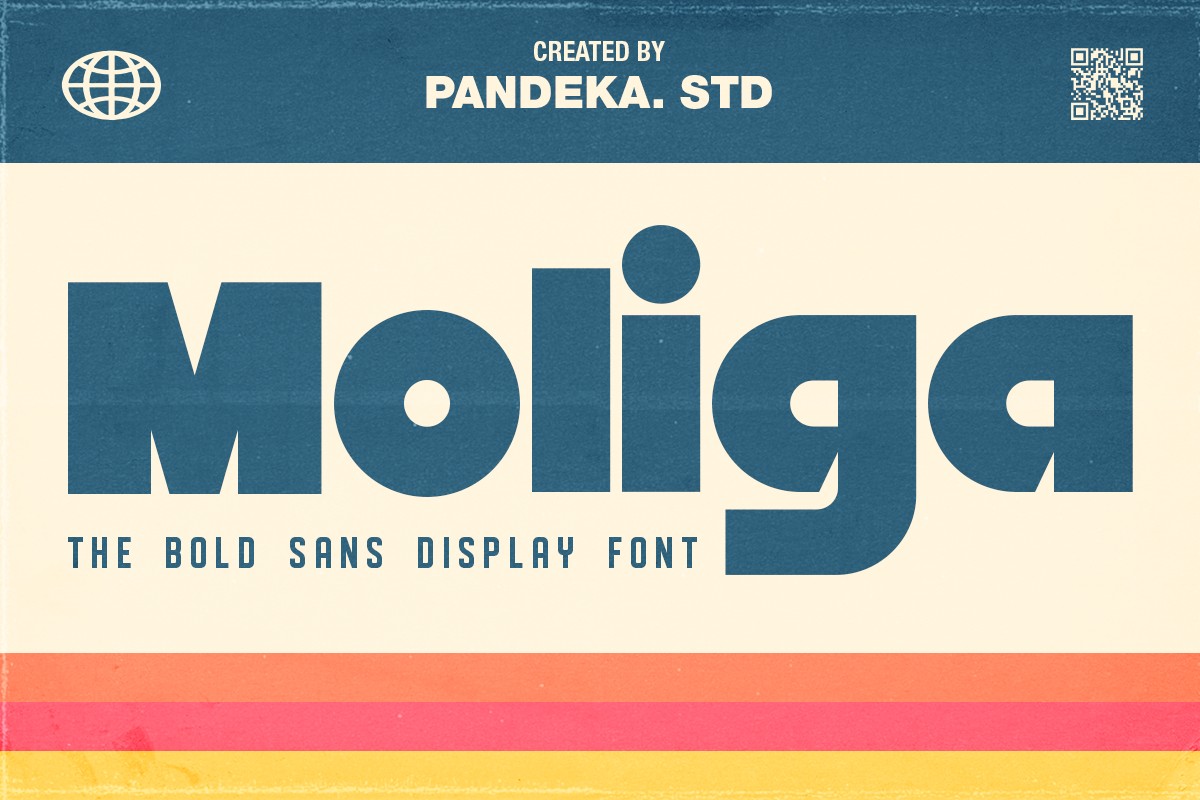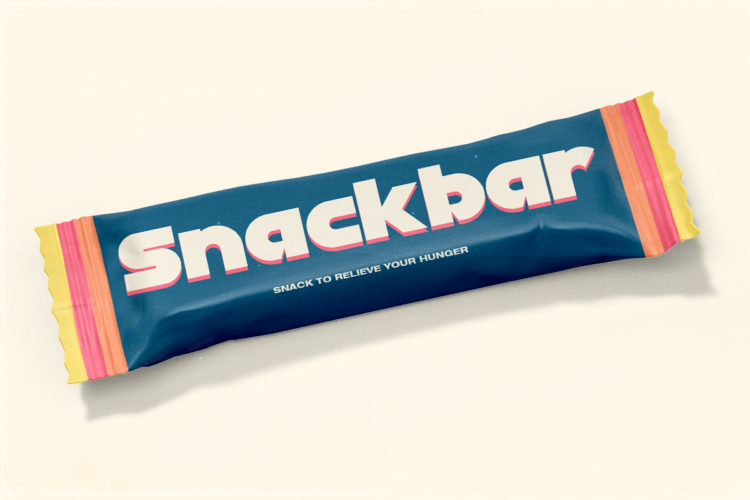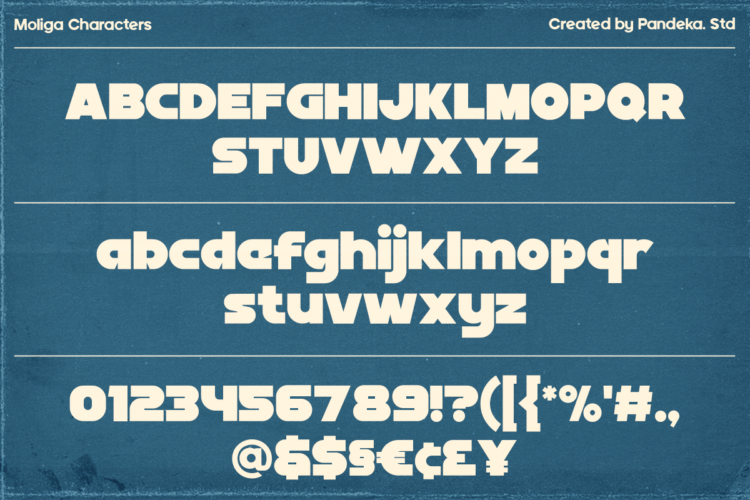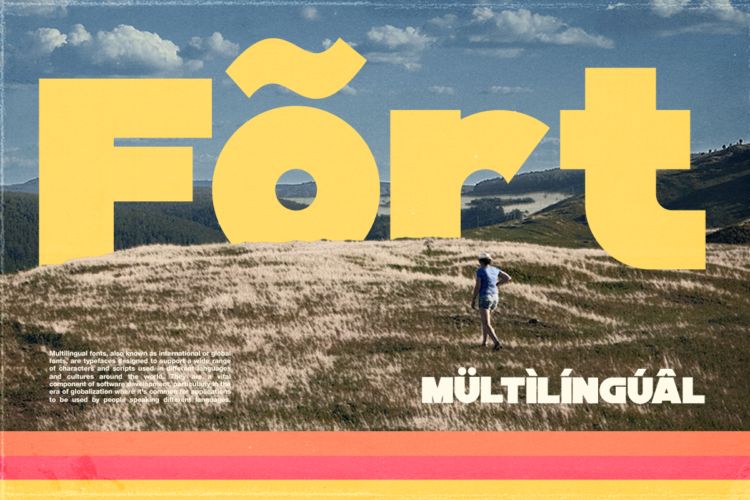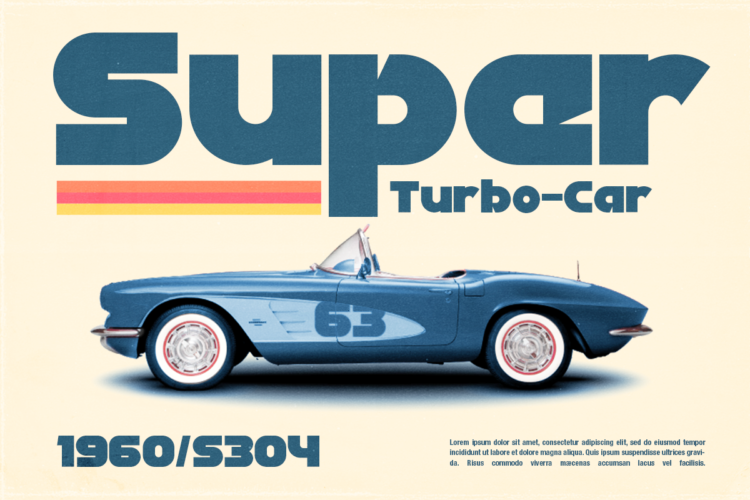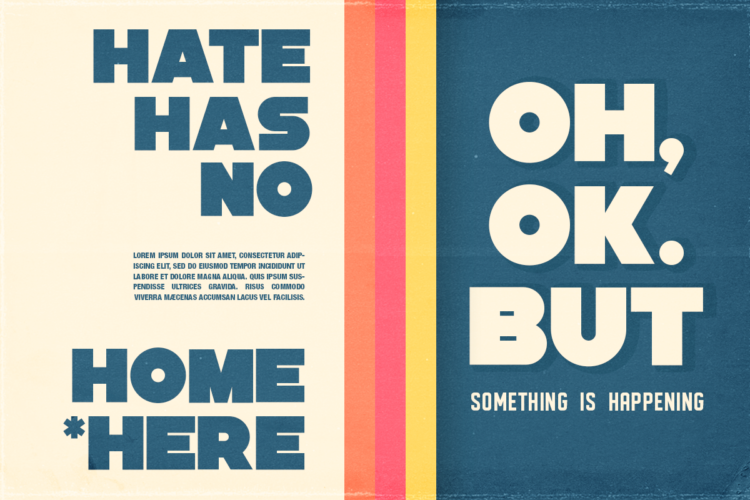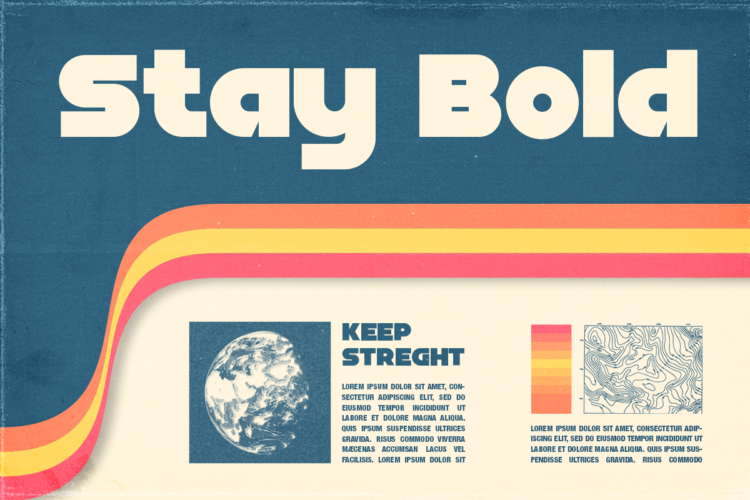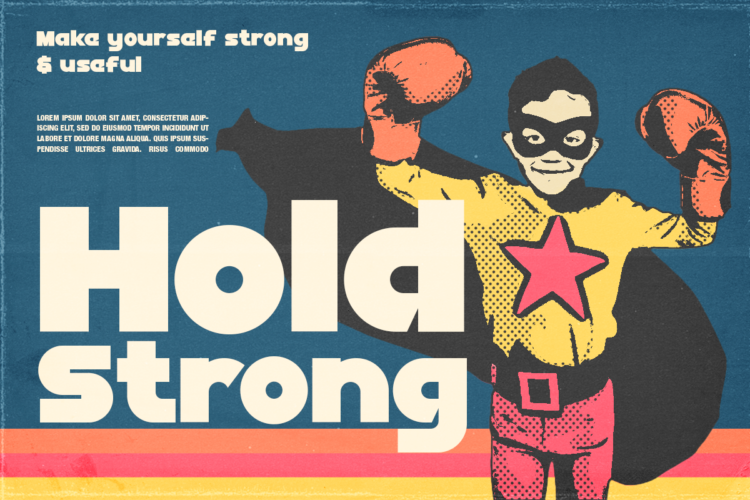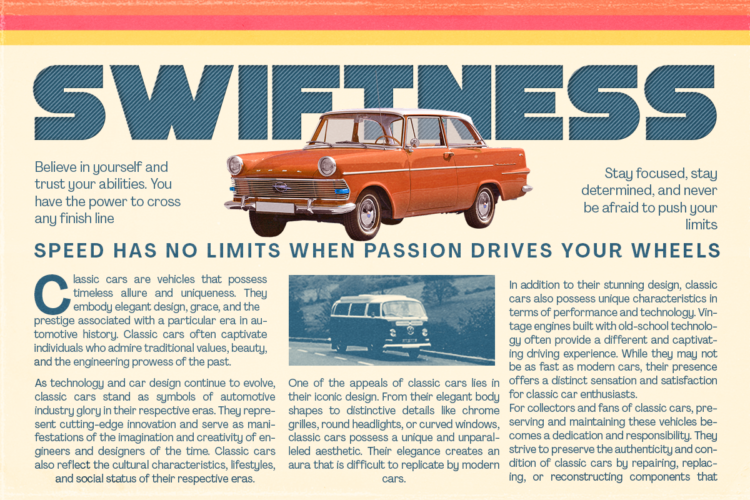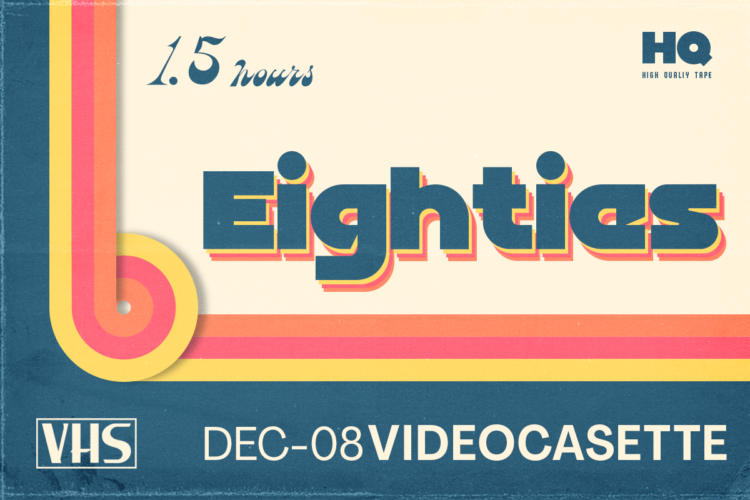
Moliga
Introducing Moliga! An Display typeface with mid century feeling.
Moliga is a sans-serif typeface with a heavy touch. The concept is a big x-height and small ascender. This font is perfect for branding, titling, headline, and more.
This typeface adds a bold and iconic style to your artworks, both retro and modern. a font with a big fat personality that will make all your artistic creations come alive with style and weight
Moliga – Display Bold Sans